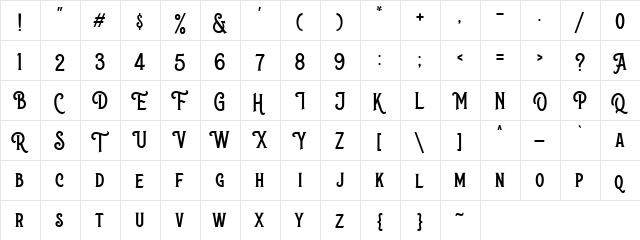
The Wanters DEMO Regular
| Foundry | Letterhend Studio |
| Designer | Letterhend Studio |
Design Context for The Wanters DEMO Typeface
The Wanters DEMO is a composed and adaptable typeface that performs quietly and consistently across a wide range of design contexts.